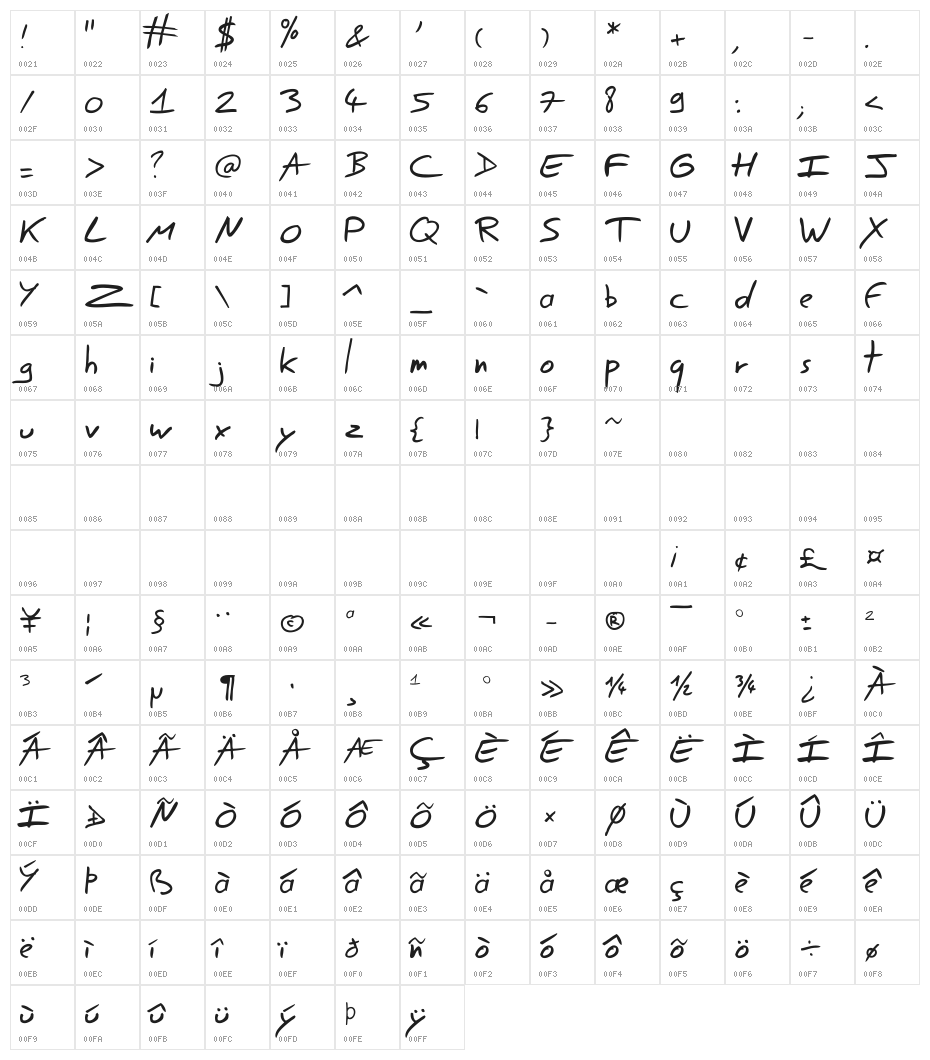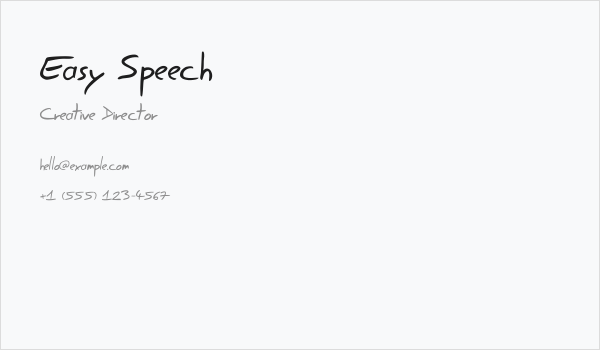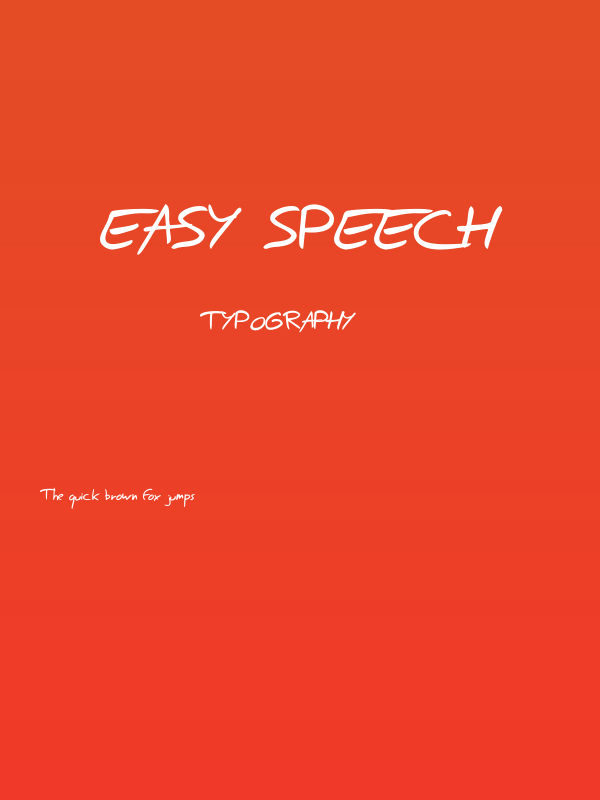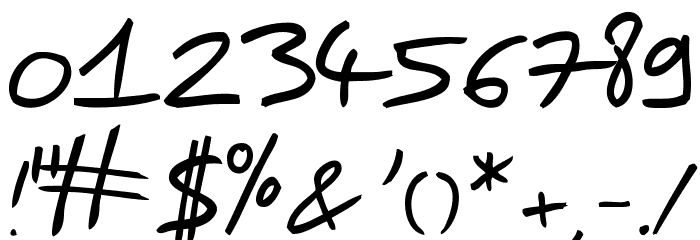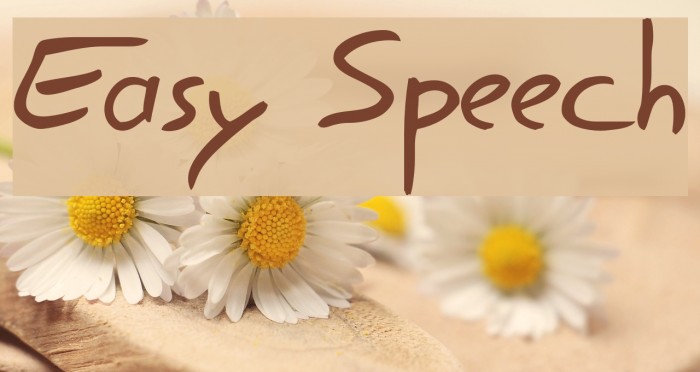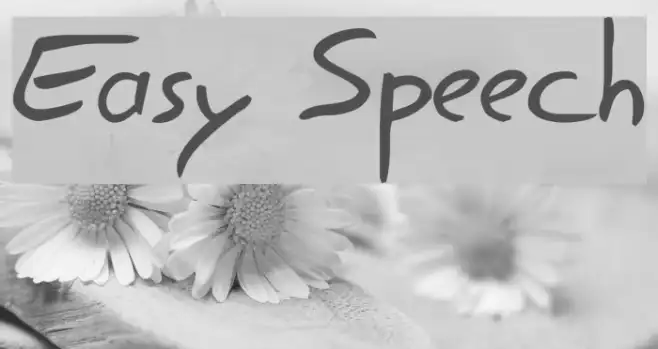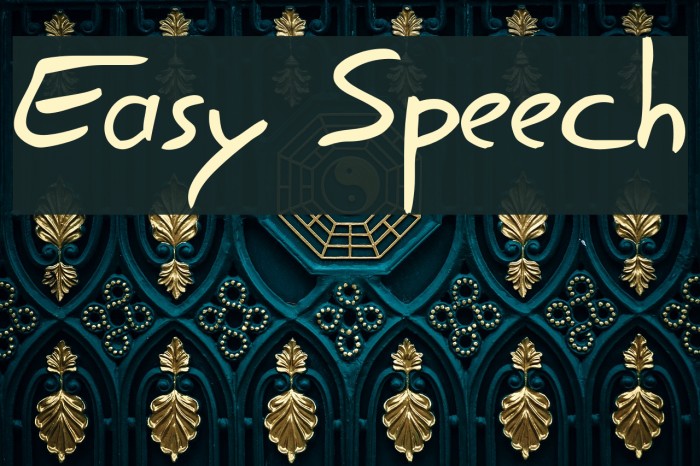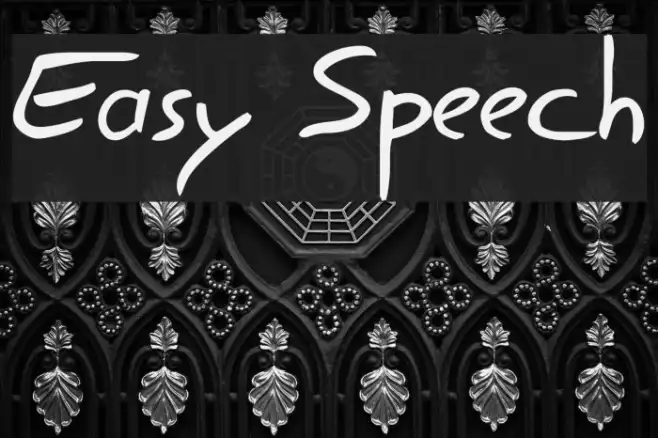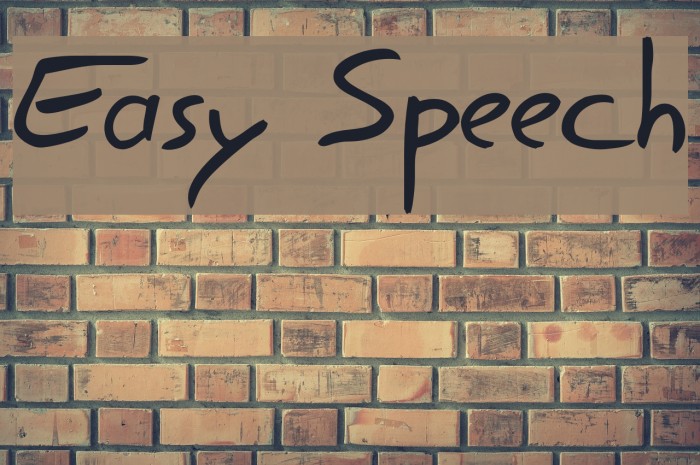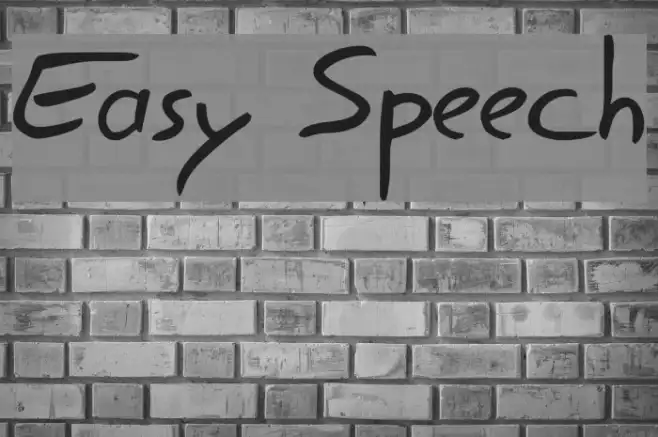
Easy Speech Font
Easy Speech Description
This font features a dynamic and energetic handwritten style, characterized by its fluid and slightly irregular strokes. The uppercase letters are bold and confident, with a slight slant that adds to the casual and informal feel. The lowercase letters maintain a consistent flow, with rounded edges and varying stroke widths that enhance its handwritten appearance. Numbers are clear and legible, matching the overall style of the letters. Special characters are creatively integrated, maintaining the playful and lively aesthetic of the font. This font is perfect for projects that require a personal touch or a sense of spontaneity.
| Overall Style | Casual, Energetic, Playful |
| Proposed Projects | Ideal for greeting cards, personal branding, social media graphics, and creative projects that require a personal touch. |